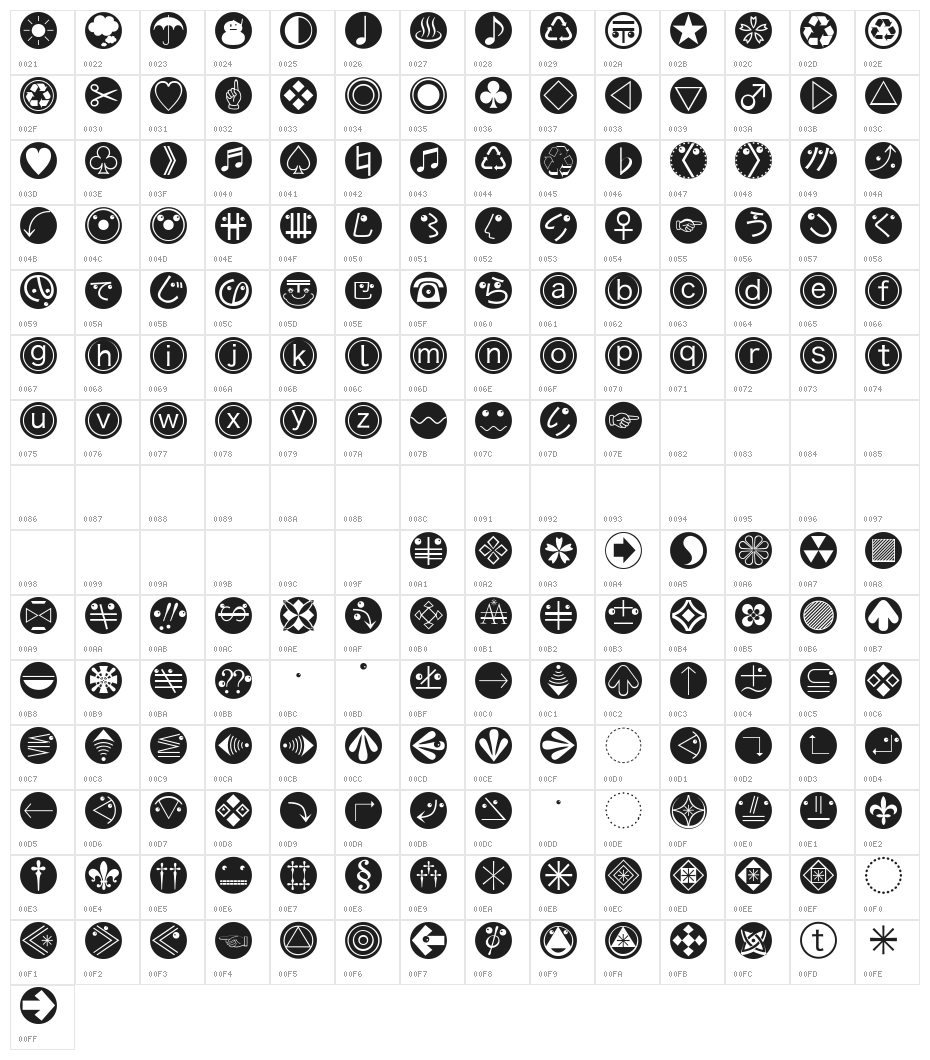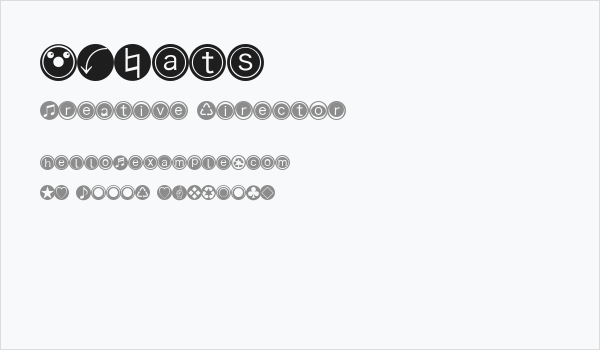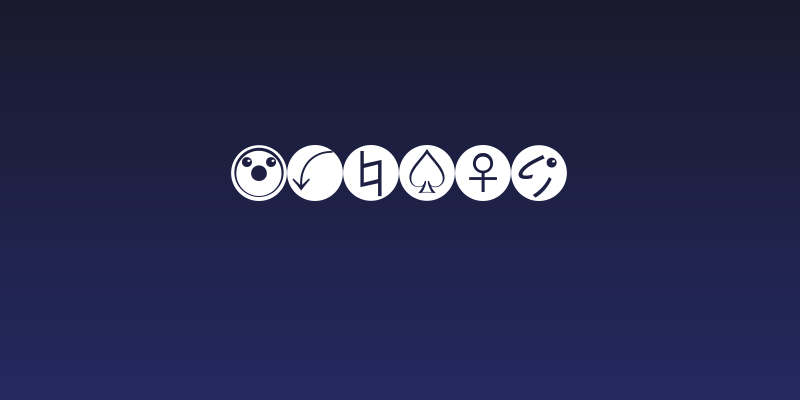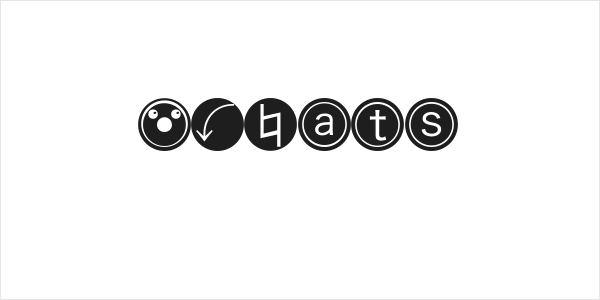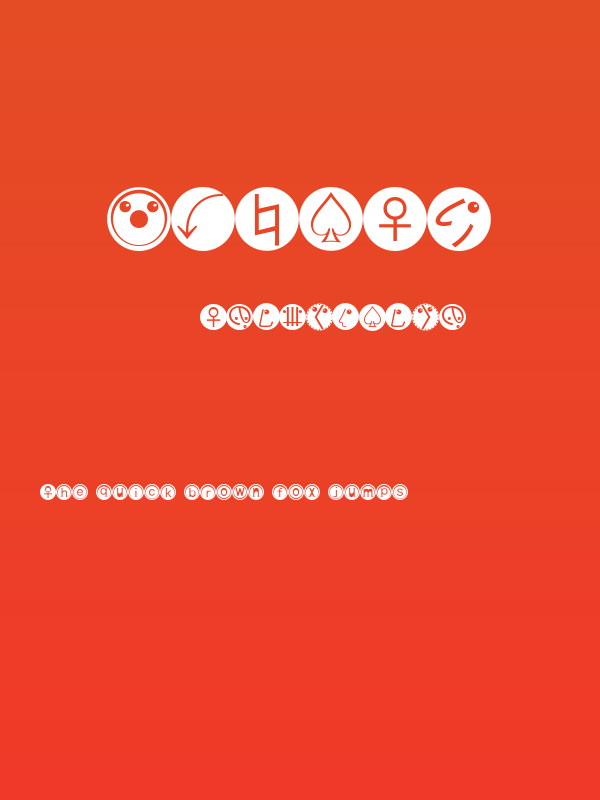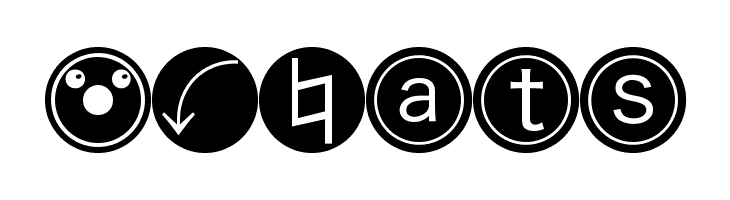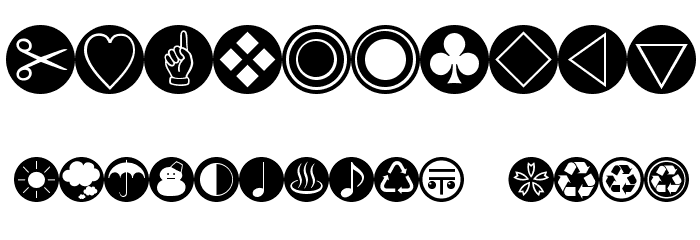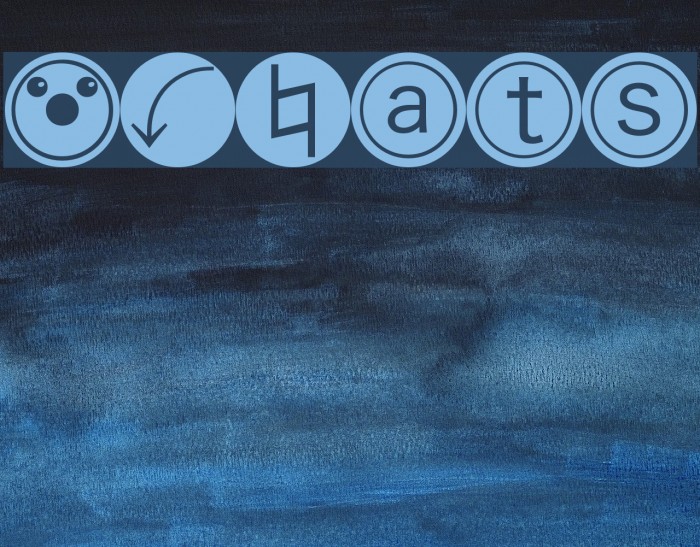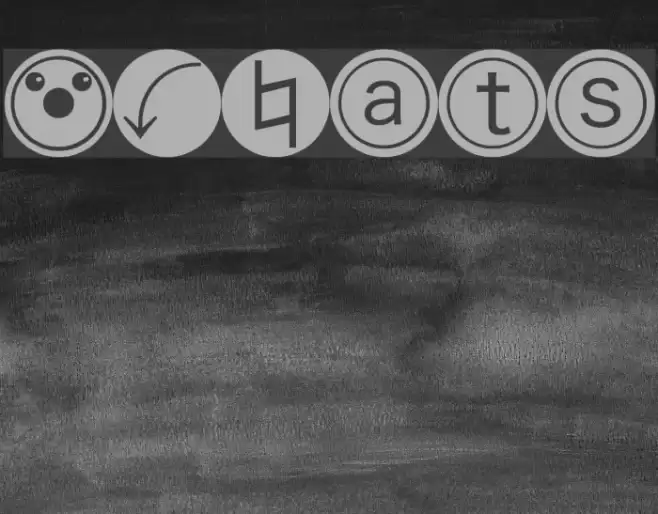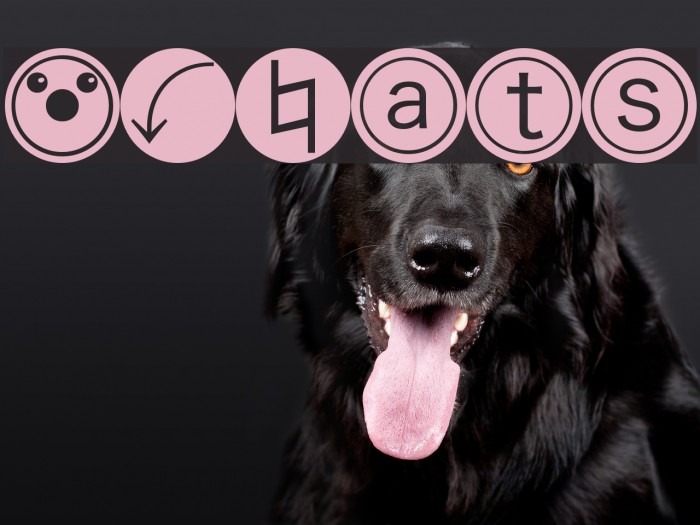
MKBats Font
MKBats Description
This font is a collection of unique symbols and icons enclosed within circular shapes. Each character is distinct, featuring a variety of designs such as musical notes, recycling symbols, and other abstract shapes. The lowercase alphabet is presented in a bold, sans-serif style, each letter encased in a circle, providing a uniform and cohesive look. The special characters include playful and thematic icons, making this font suitable for creative and decorative purposes. The overall style is modern and artistic, with a focus on visual impact and versatility.
| Overall Style | Modern, Decorative |
| Use Case | Logos, Posters, Creative Projects |
| Proposed Projects | Ideal for creative projects, logo design, posters, and themed event materials. |